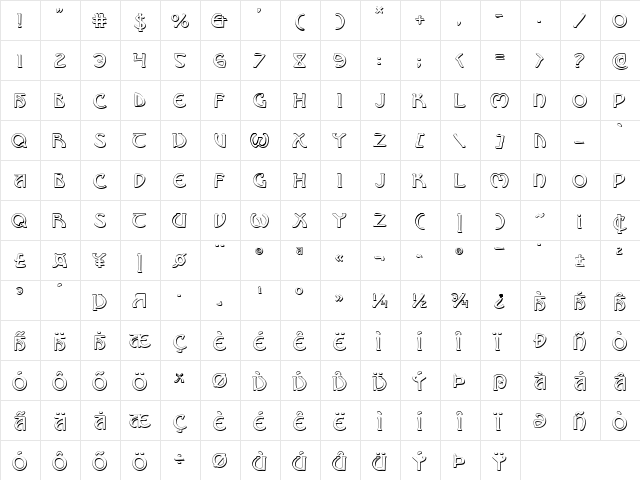
Brin Athyn Shadow Regular
Design Context for Brin Athyn Shadow Typeface
Brin Athyn Shadow brings ornamental detail and strong personality to headlines and identities, where visual impact matters more than quiet functionality.
Font Pairing: Pair with a clean neutral sans-serif for body copy to let Brin Athyn Shadow's character lead without overwhelming the composition.
Pro Tip: Use Brin Athyn Shadow exclusively at display sizes — it was designed to be seen, not read at length. Let a neutral companion handle body copy.